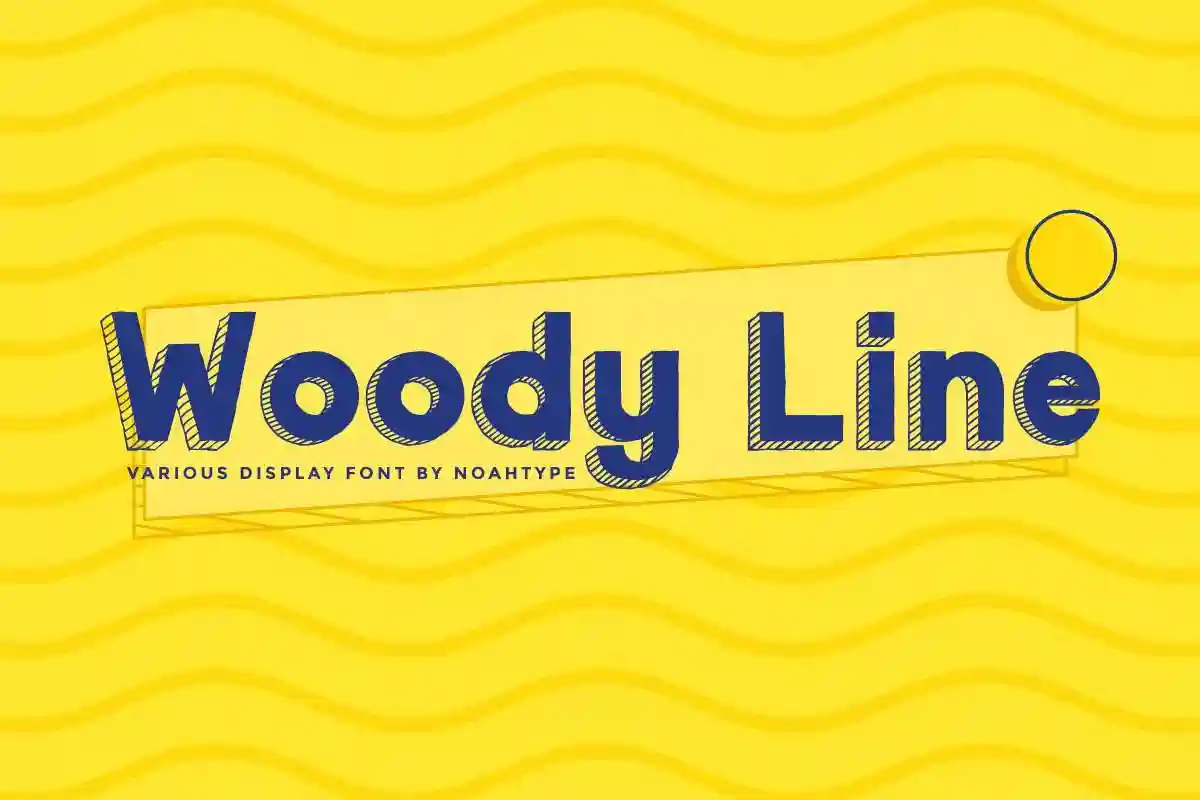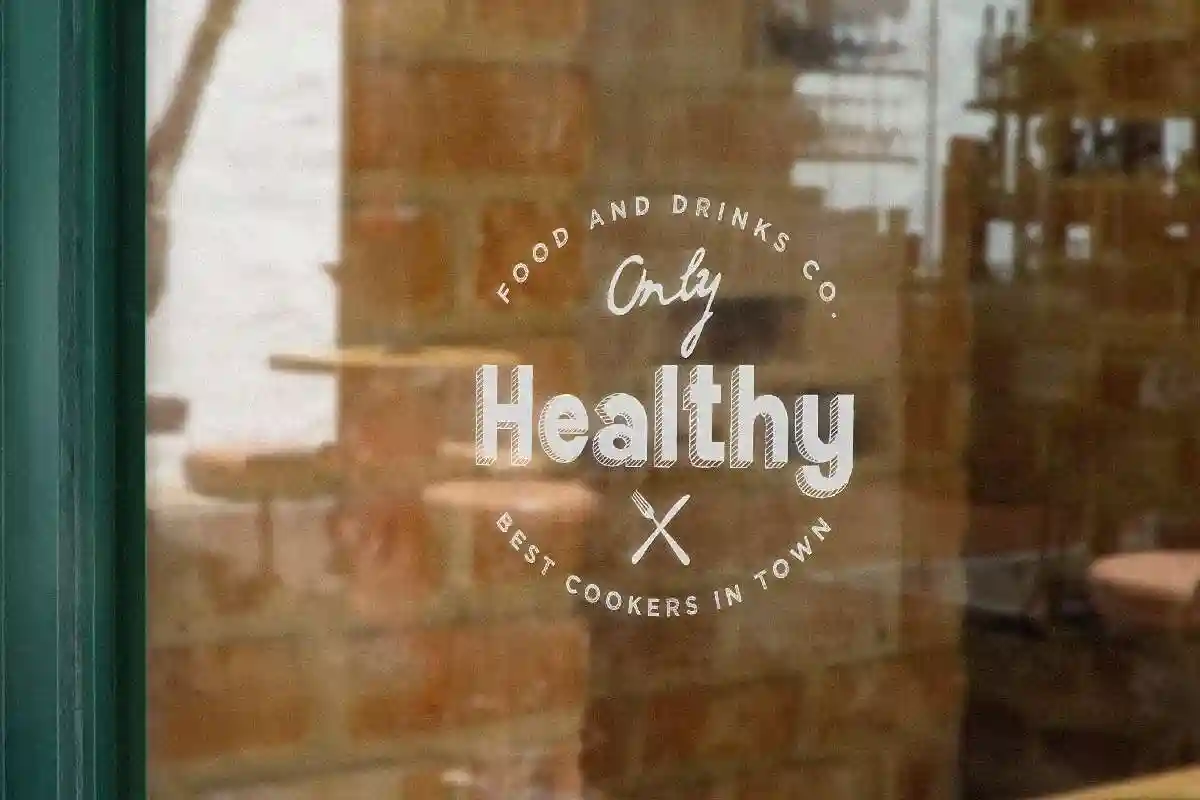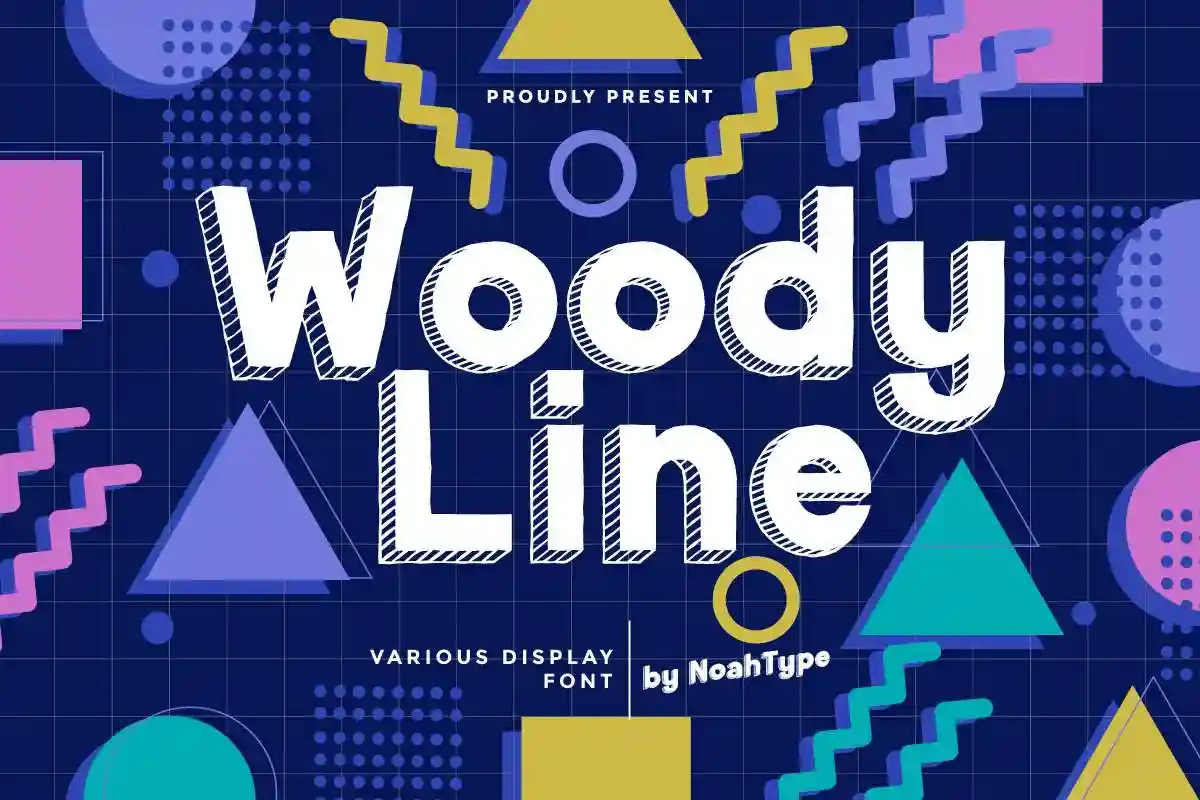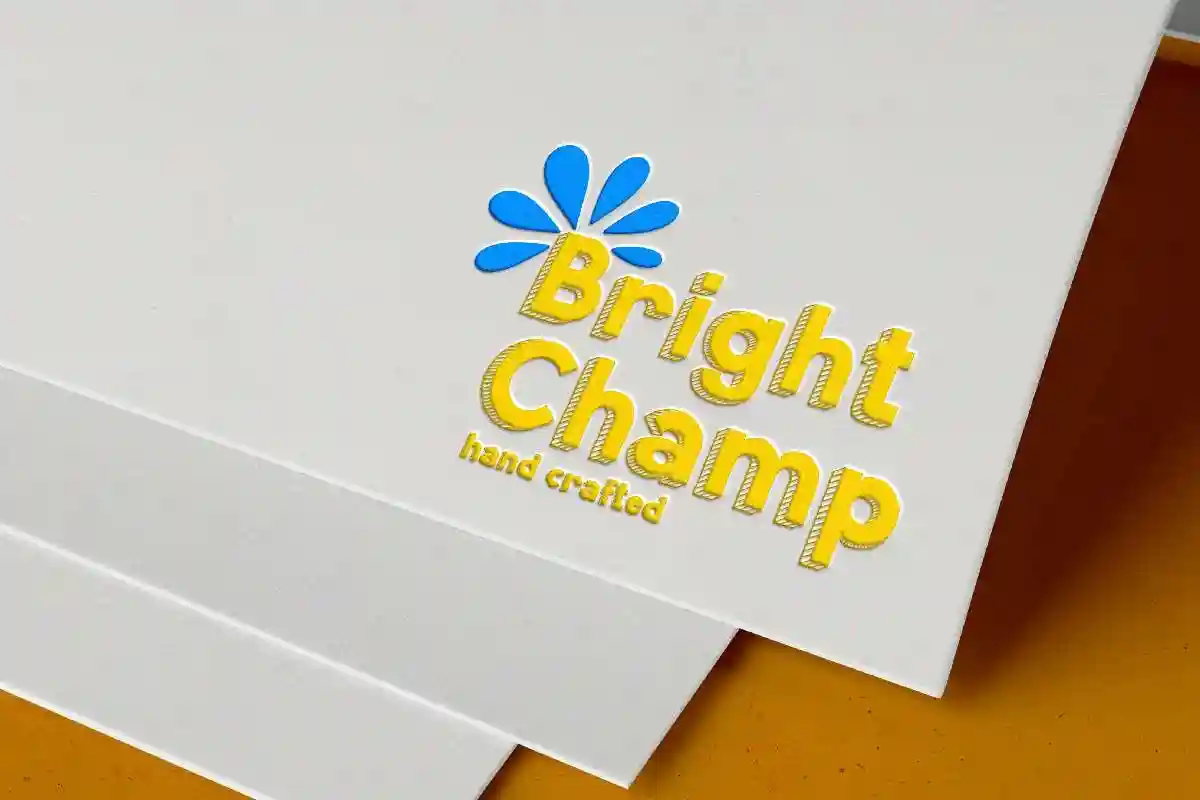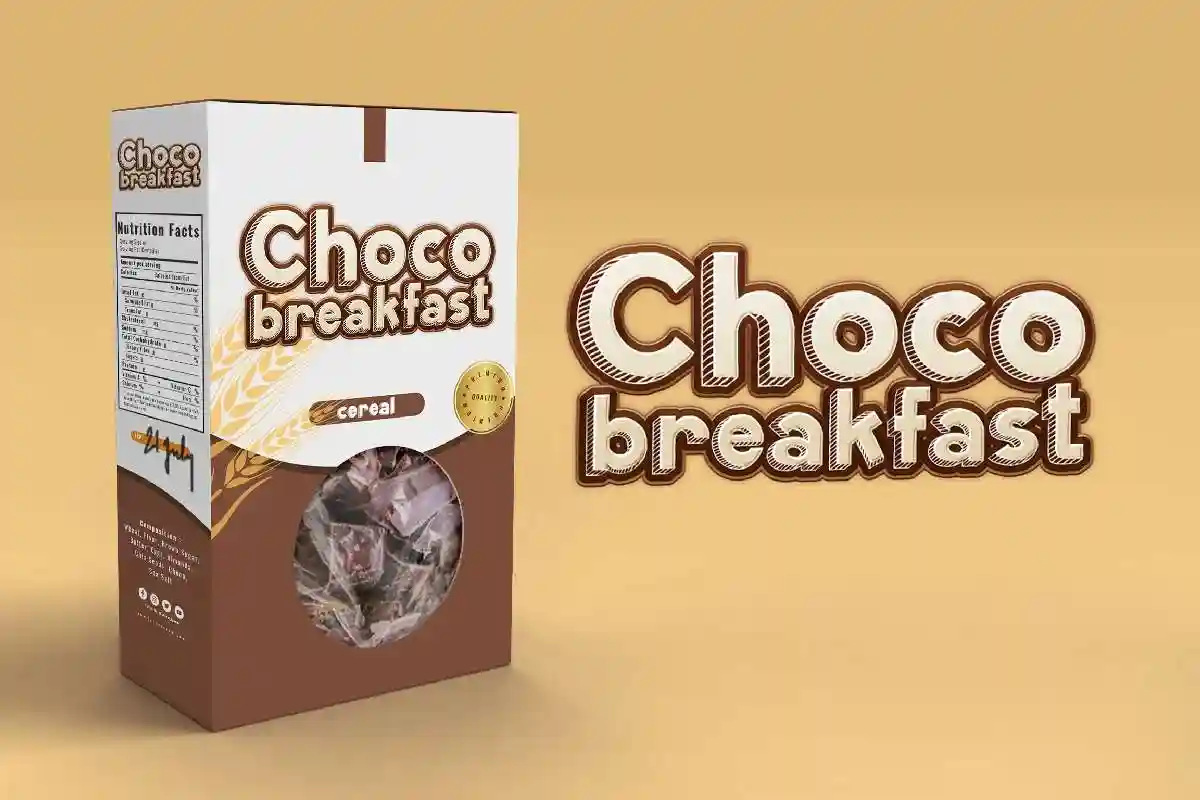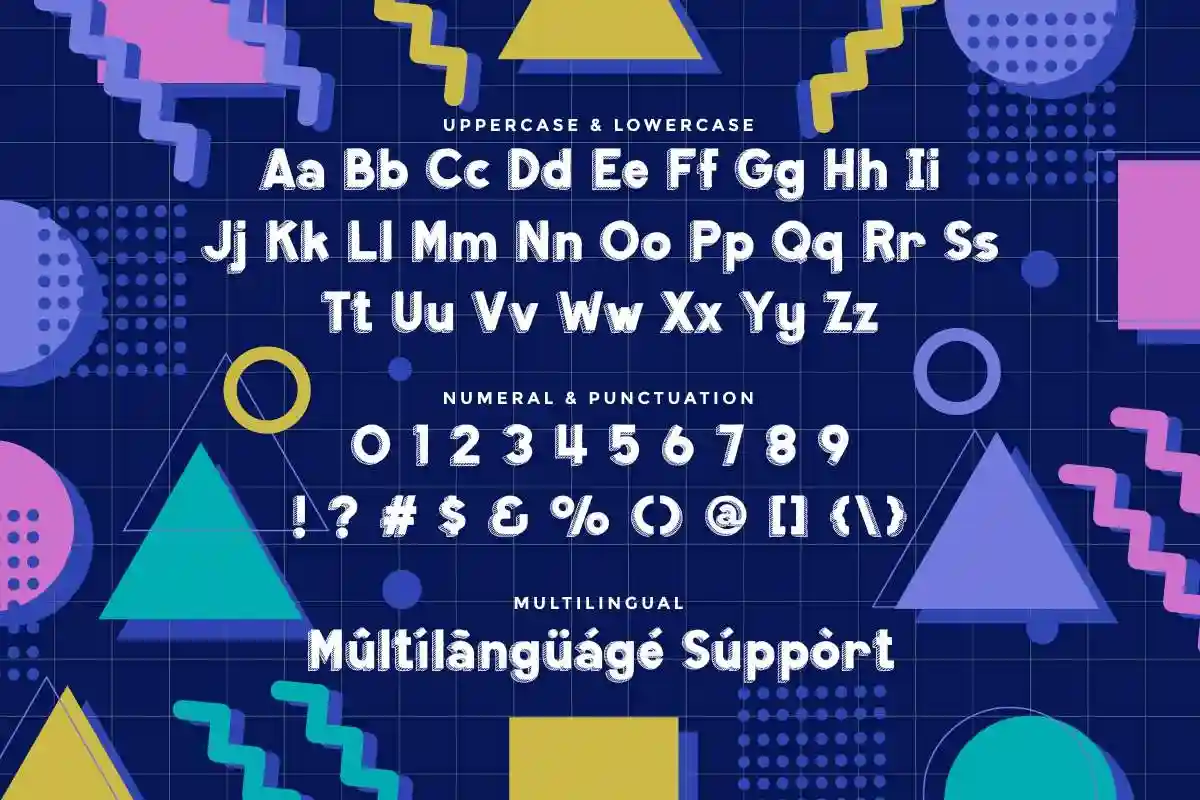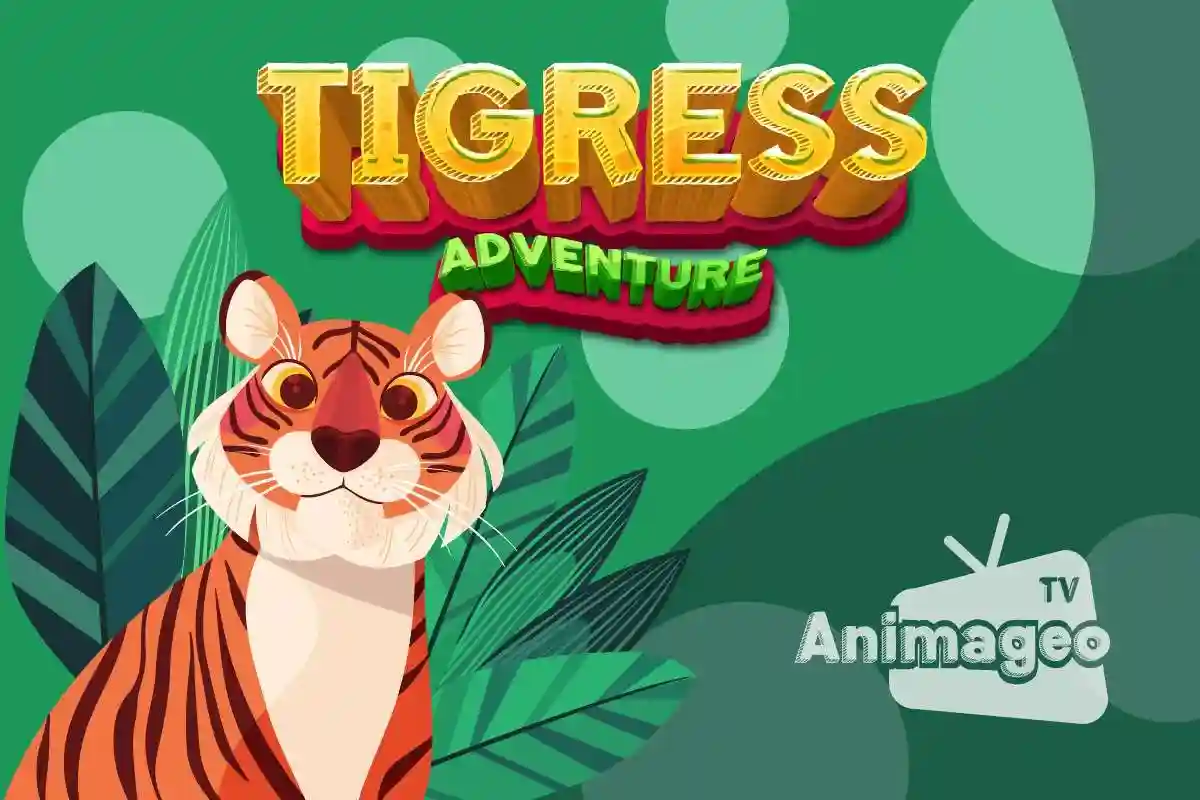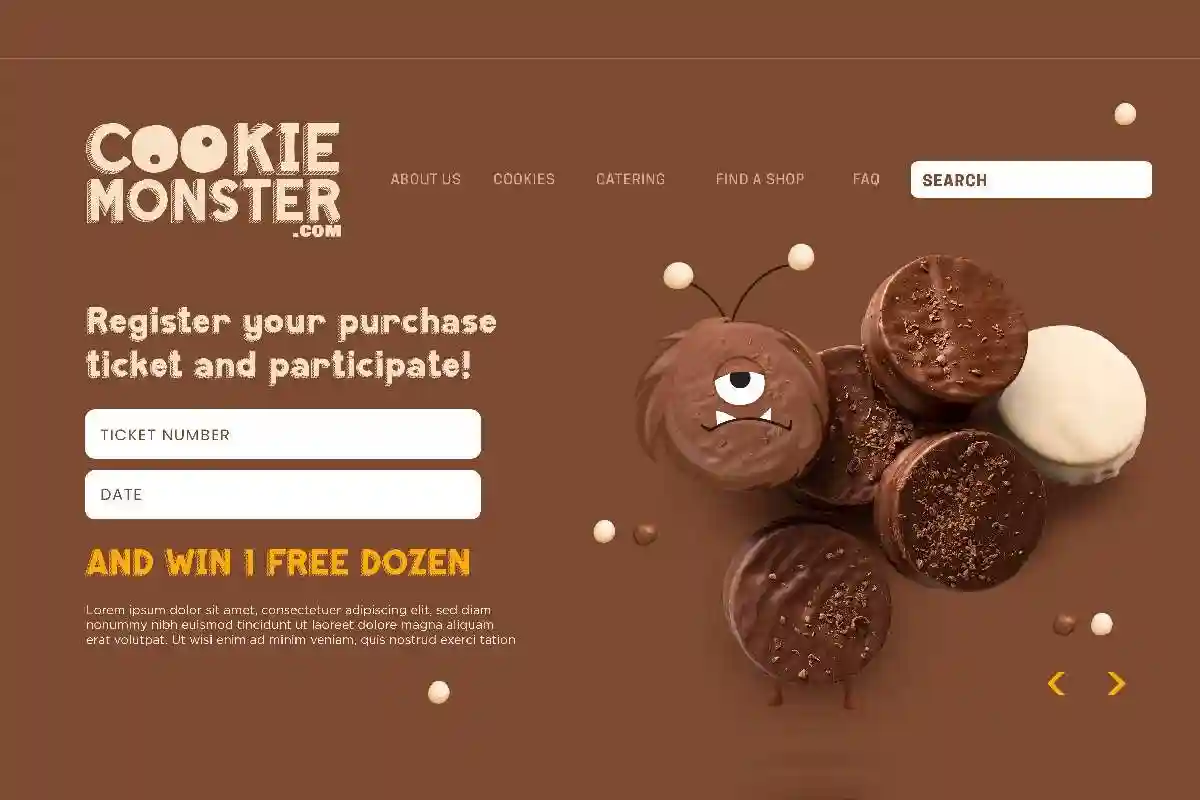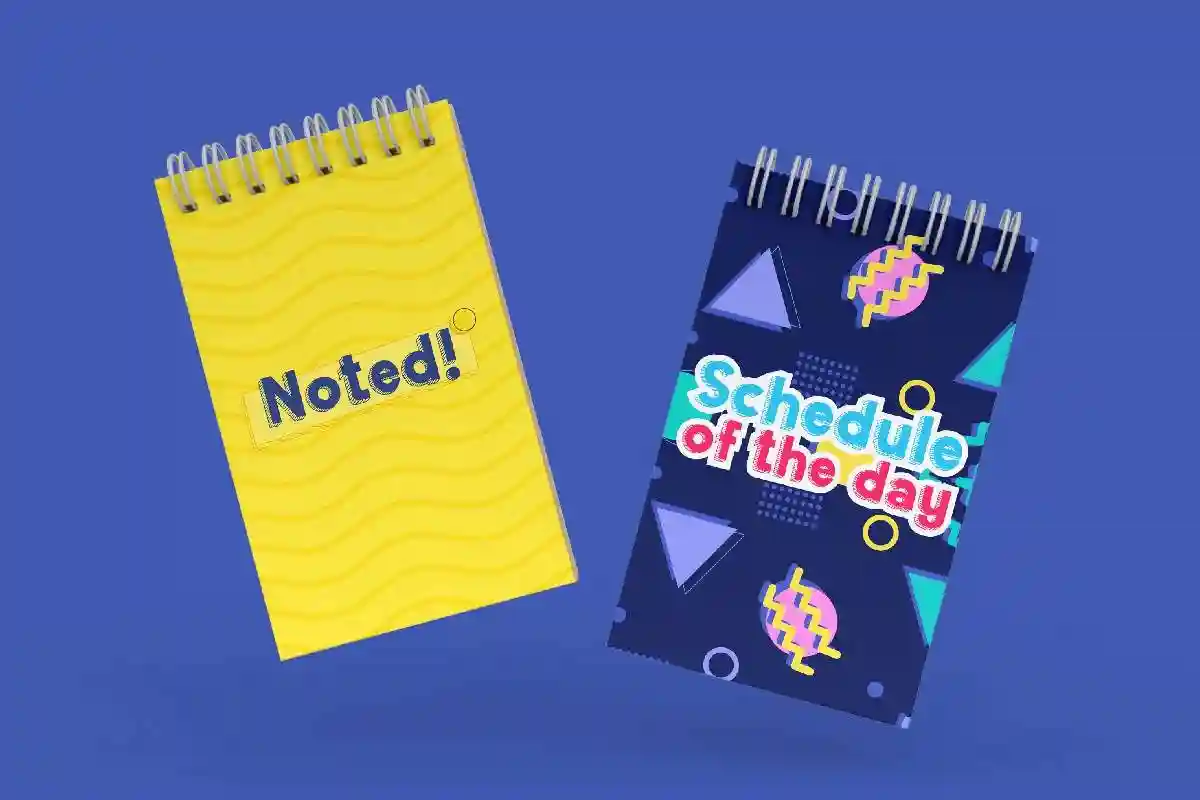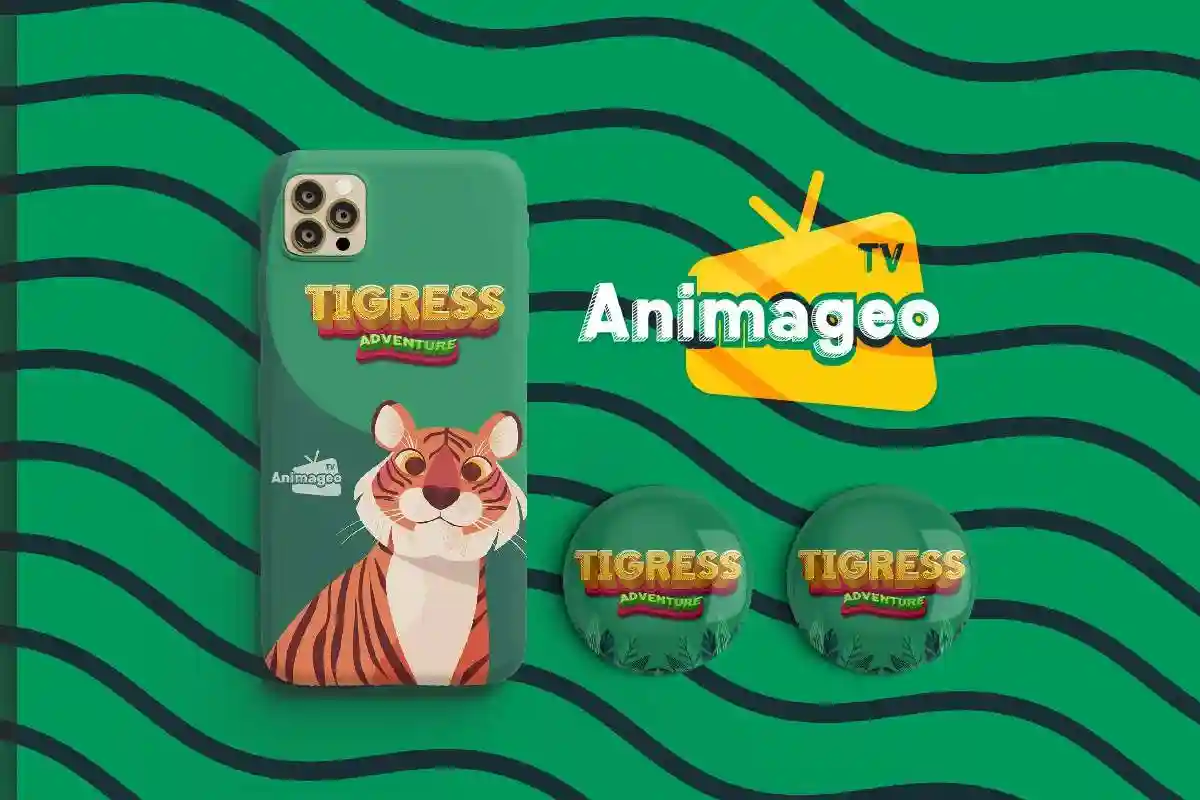
Woody Line Font is a funny display font with comic style by NoahType, inspired from comic writing style that is funny and unique. This font is crafted carefully in every its single line, created to look as close to a natural handwritten script so that it can create the perfect combination on each glyph. When we make this font, we really want to create a touch that is so free-flowing that it gives a natural impression on its use later. This fun comic font is for anyone who are needing of fun and casual designs.
The fonts come with full set of Uppercase and Lowercase Basic Characters, Numerals and Punctuation. Also it contains some alternates characters to perfectly make natural handwriting look that add more aesthetic fonts to perfect your extraordinary project. Woody Line Font will be awesome for comic, events, invitations, movie, food, restaurant, children book, school, kids products, social media etc
Woody Line Font will be great for branding, logotype, social media post, poster, invitation, lettering and many more